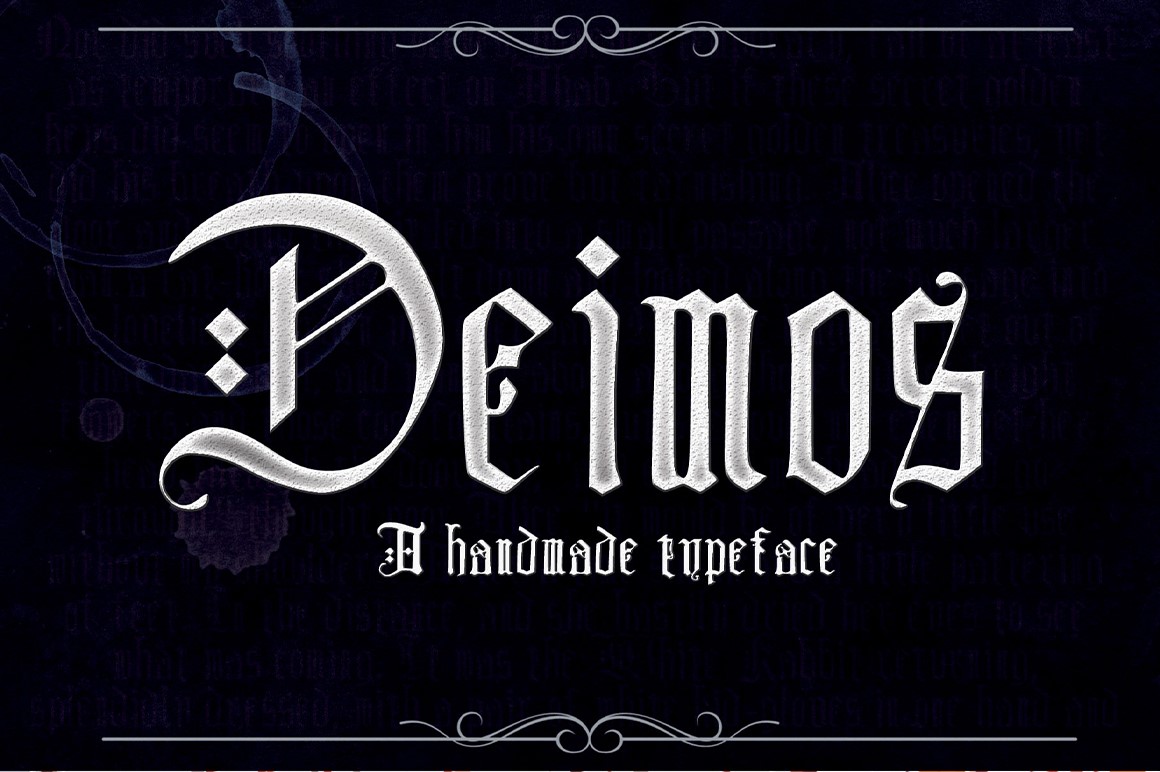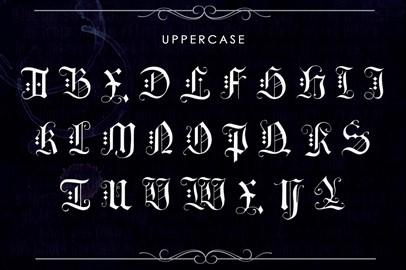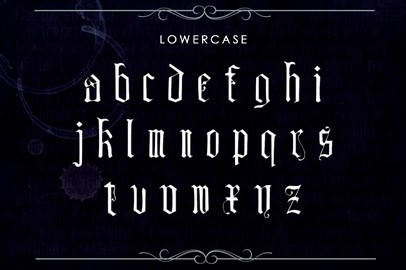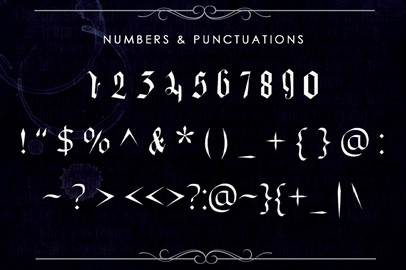
DEIMOS, a Blackletter Typeface
DEIMOS is a 16th-century typeface
that has been hand drawn and made into a font to give you a very authentic handwritten feel. A typeface brought back from the past to give life to your projects, this typeface comes with upper, lowercase, basic characters, numbers, marks, and punctuation. This style is now mostly used for decorative purposes, for example, to evoke an old word classical feel. It can also be used to evoke a heavy metal feeling.